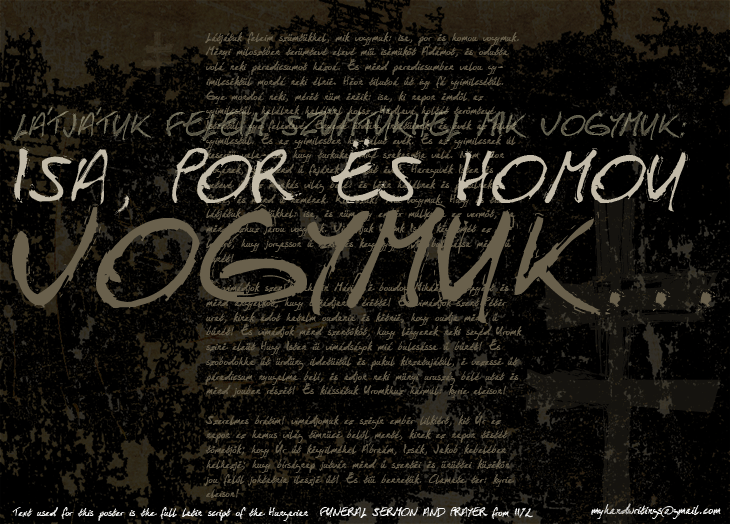
Preview and download Isa Por Es Homou Font. Created by Runes & Fonts in Script Trash styles with Donationware license.
ISA POR ES HOMOU is a handwritten font in grunge style. The name comes from „The Funeral Sermon and Prayer which is the oldest known and surviving contiguous Hungarian text, written by one scribal hand in the Latin script and dating to 1192-1195. It is found on f.154a of the Codex Pray”. http://en.wikipedia.org/wiki/Funeral_Sermon_and_Prayer The font is donationware which means that commercial use requires donation. If you need extra character contact me at myhandwritings@gmail.com Also feel free to drop me a line in case of questions or feedback.Mostly in case of any problems with the characters, pairs, installation etc. That would also help me in my design work, and would be greatly appreciated! Roland Huse, http://www.myhandwritings.com |